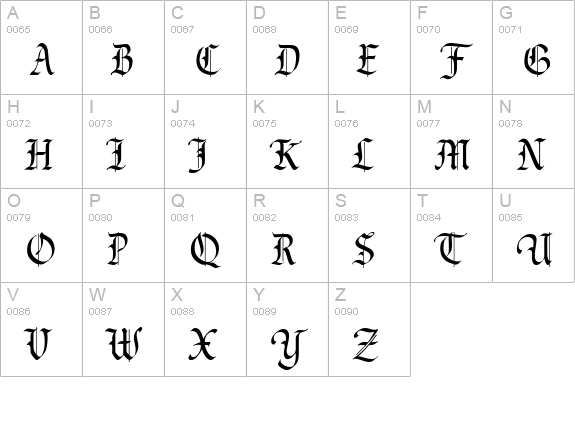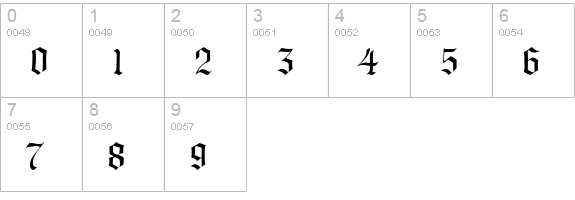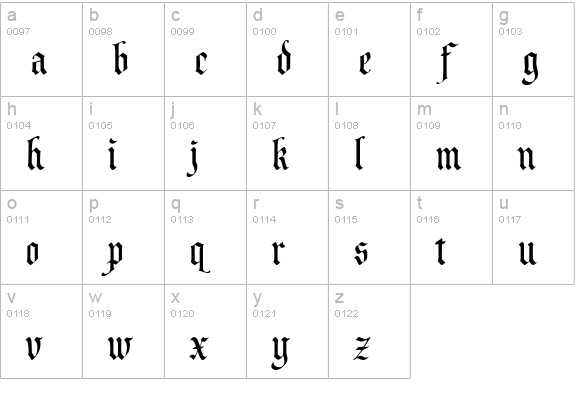
CAC Valiant Font Details
CAC Valiant is a breathtakingly unique and versatile font that captures the essence of elegance and sophistication. Its graceful curves and sharp edges make it an ideal choice for any design project that requires a touch of refinement. Whether you're designing a logo, creating a stunning invitation, or crafting a captivating headline, CAC Valiant will effortlessly elevate your work to new heights. One of the most remarkable aspects of CAC Valiant is that it is completely free. Yes, you read that right! This exquisite font is freely available to download at FontsMarket.com, making it accessible to designers, artists, and enthusiasts around the world. With its generous licensing terms, you can use CAC Valiant for personal and commercial projects without any restrictions. The beauty of CAC Valiant lies not only in its striking visual appeal but also in its versatility. It seamlessly adapts to various design styles, whether it be modern, vintage, or anything in between. Its clean and legible characters ensure readability, while its artistic flourishes add a touch of flair and individuality. The extensive character set of CAC Valiant includes uppercase and lowercase letters, numerals, punctuation marks, and a wide range of special characters. This allows you to create captivating typographic compositions that are as unique as your imagination. Designed with meticulous attention to detail, CAC Valiant is the epitome of craftsmanship. Every curve and contour is meticulously crafted to ensure a harmonious balance between form and function. The result is a font that not only looks visually stunning but also performs flawlessly across different mediums, such as print, web, and mobile. So why wait? Download CAC Valiant for free at FontsMarket.com and unlock a world of creative possibilities. With its unrivaled beauty, versatility, and accessibility, CAC Valiant is the perfect choice for any design project that demands excellence. Let your creativity soar and make a bold statement with CAC Valiant – the font that is as remarkable as it is free.